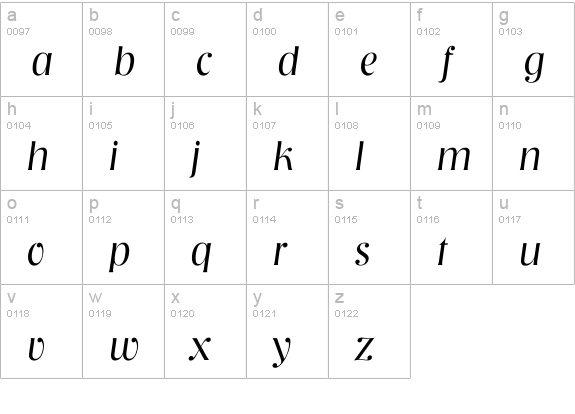
Inashville Light is a refined, elegant variant in the Inashville typeface family \xE2\x80\x94 well suited to elegant body text, refined sub-headings, and luxury branding.
Introducing Inashville Light, a stunning and elegant font that effortlessly combines modern simplicity with timeless sophistication. Designed for those seeking a clean and crisp aesthetic, Inashville Light is the perfect choice for any project that demands clarity and refined elegance. The exquisite lines and delicate curves of Inashville Light create a harmonious balance, making it a versatile font suitable for a wide range of applications. Whether you're designing a logo, crafting a professional presentation, or creating captivating typography for your website, Inashville Light will elevate your work to new heights. With its graceful and effortlessly legible letterforms, Inashville Light brings a touch of class to any design project. Its sleek and slender strokes exude an air of understated elegance, making it ideal for branding, advertising, and editorial purposes. From fashion magazines to high-end corporate identities, Inashville Light stands out as a refined and sophisticated choice. One of the best features of this remarkable font is that it is available completely free for download at FontsMarket.com. Yes, you read that right – Inashville Light can be yours without spending a dime! This means that you can add this exceptional typeface to your design arsenal without any hesitation. Downloading Inashville Light from FontsMarket.com is quick and hassle-free. Simply visit the website, locate the font, and click the download button. In just a few moments, you will have Inashville Light at your fingertips, ready to enhance your creative projects. So, why wait? Embrace the elegance and refinement of Inashville Light and take your designs to the next level. Download this extraordinary font today, and let it be the perfect companion for all your future design endeavors. Remember, Inashville Light is freely available at FontsMarket.com – seize this opportunity to elevate your typography game without breaking the bank.